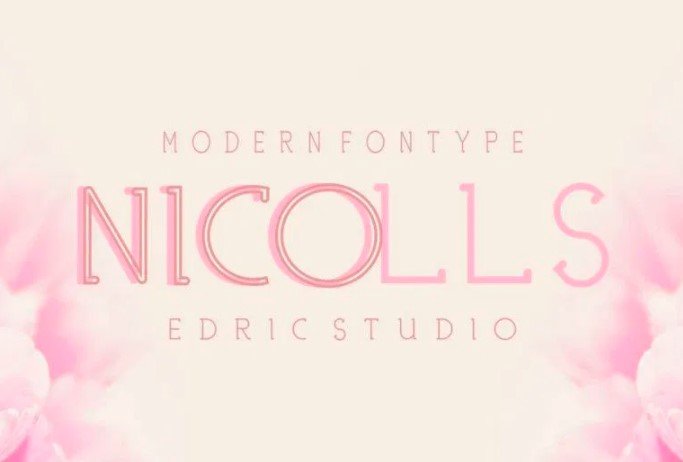
Hey designers, today we are offering the highly advanced display typeface known as Nicolls Font. This typeface is packed with the finest, unique, and outstanding features, making it perfect for design projects that require attractiveness, beauty, and engagement.
| Name | Nicolls Font Family |
| Designer | Edric Studio |
It is appropriately suitable for high definition images, large compact designs, high readable images and many more other works that can be achieved just with this typeface. Also, it can be usable with a combination of streetlight script font.